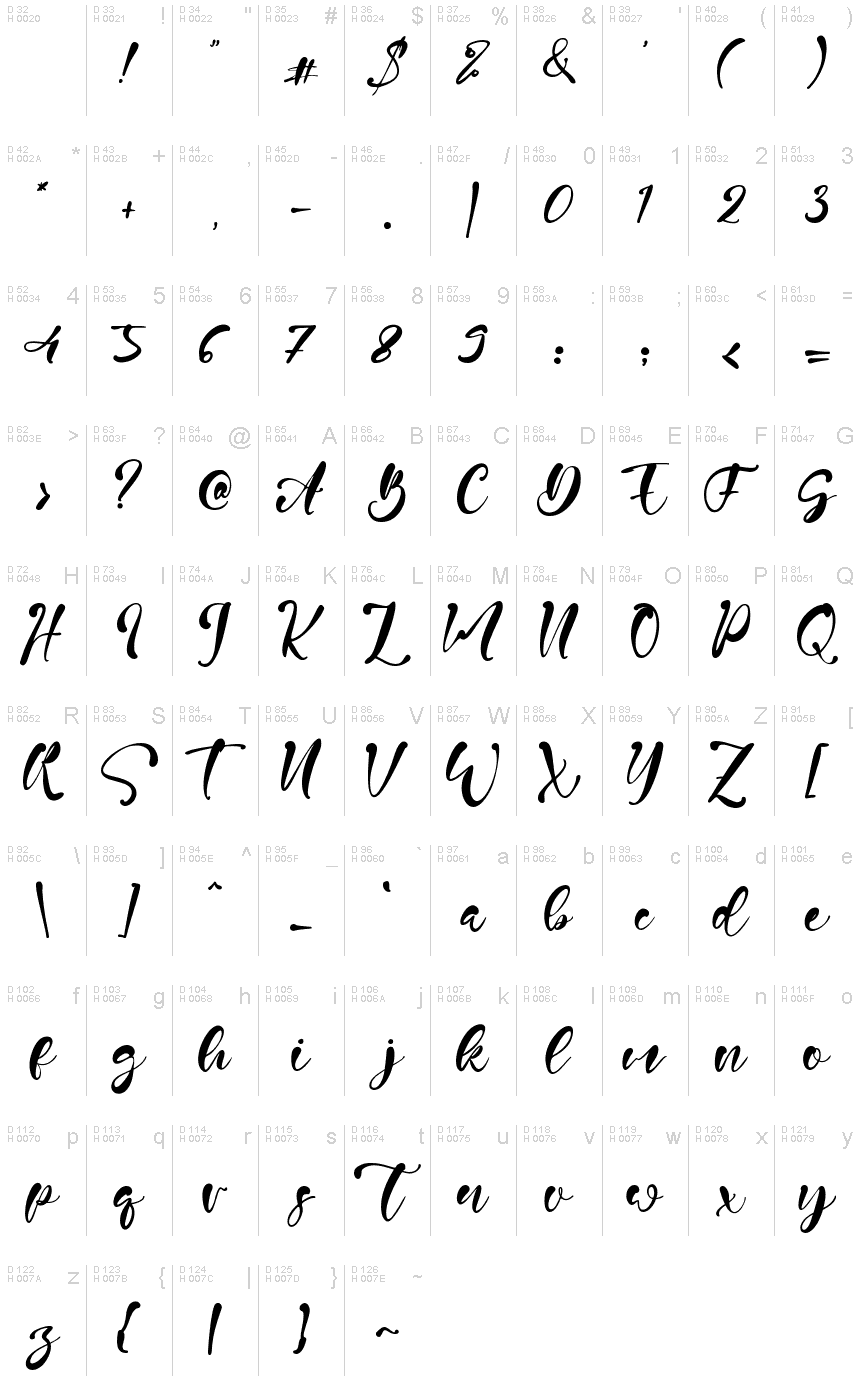
Nelville
Nelville, the exquisite calligraphy font by Kong Font, adds a touch of elegance and sophistication to any project. Its bold weight commands attention and conveys confidence. Perfect for wedding invitations, luxury branding, or fashion editorials, Nelville complements high-end projects seeking a refined aesthetic. With its graceful strokes and artistic flair, this font type is also suitable for creating stunning logos or elegant packaging designs. Embrace the allure of Nelville's calligraphic charm and elevate your creative endeavors to new heights.